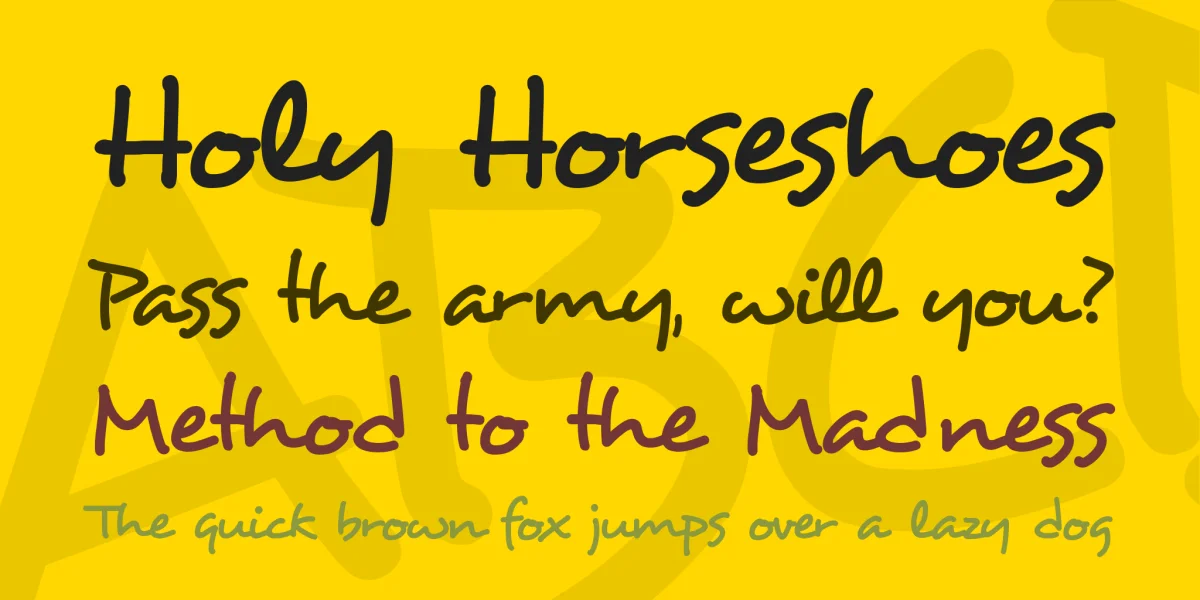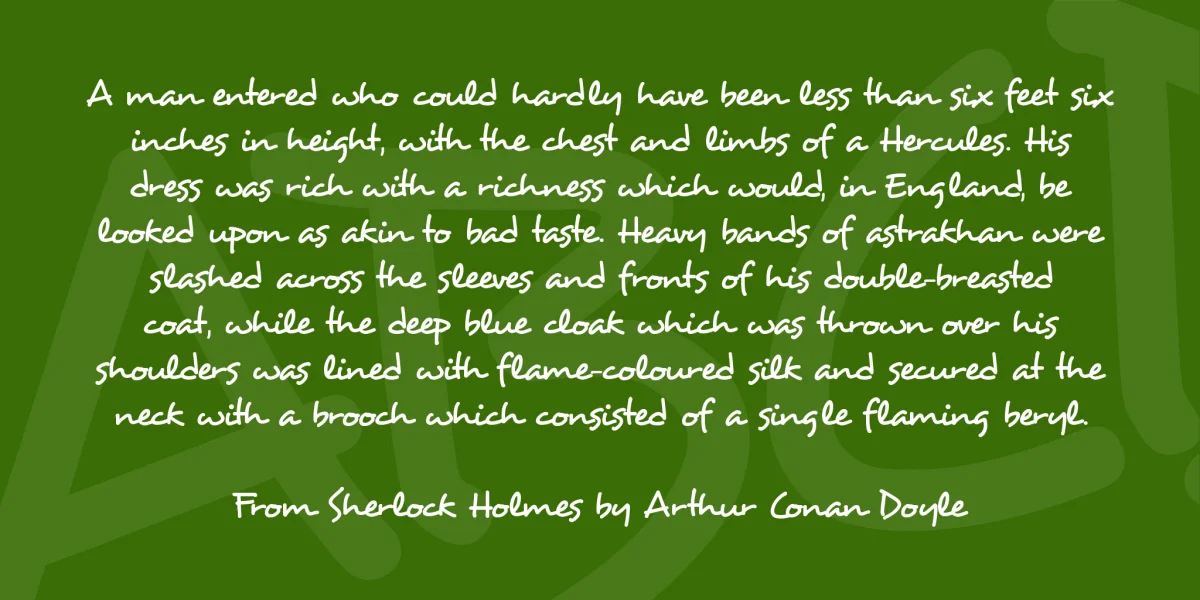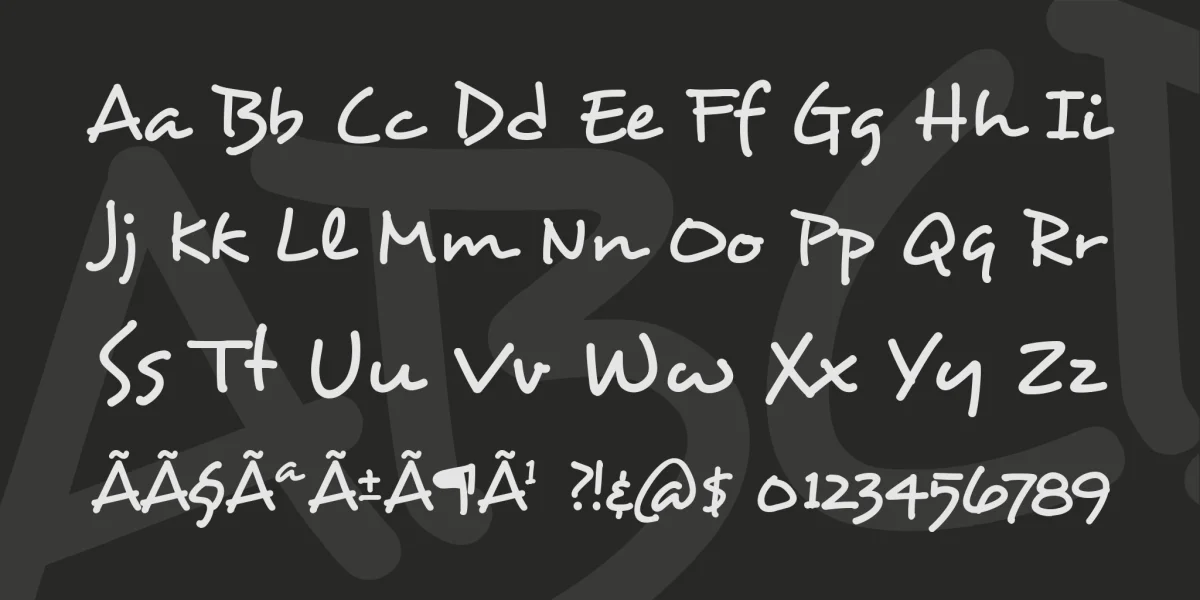
This is version 2.0 of Desyrel, and I have a confession to make here on my and Dana's behalf: the shapes were based on an old font called McQ which was originally made as an OEM for greeting cards. We tried to improve as best as we could.
This version contains over 540 characters and support for more languages than you can shake a font at. Kerning it was hell, but we're happy with it now.